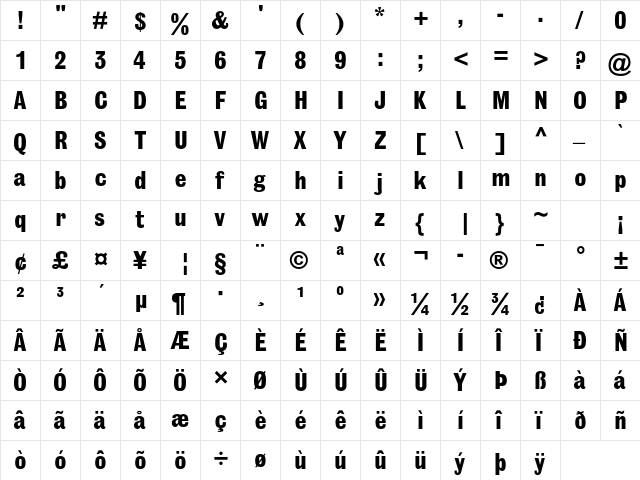
Headline MT Std Bold
| Foundry | Agfa Monotype Corporation |
Design Context for Headline MT Std Typeface
Headline MT Std takes a measured approach to typography — its balanced proportions and neutral character make it a reliable workhorse for both digital and print work. The heavy weight commands attention and anchors typographic hierarchies.